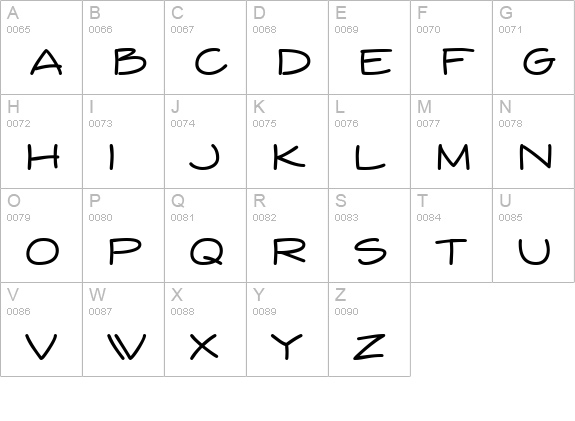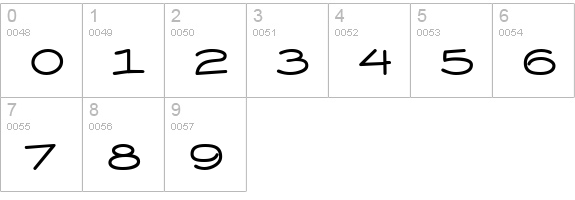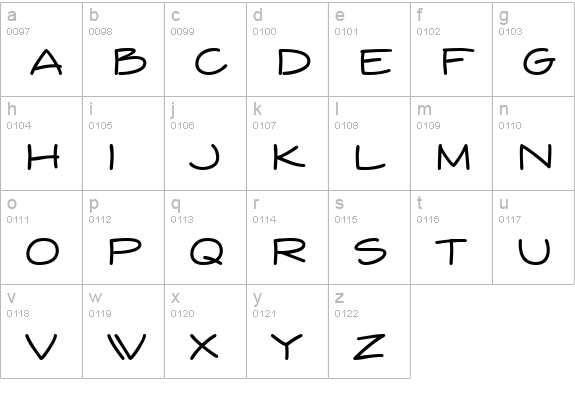
Yuba BTN Font Details
Yuba BTN is a modern and versatile font that effortlessly combines elegance with a touch of playfulness. Its smooth lines and subtly rounded edges give it a friendly and approachable feel, making it perfect for a wide range of design projects. Whether you're creating a logo, branding materials, or social media graphics, Yuba BTN is sure to make your text stand out. What makes Yuba BTN even more appealing is that it is available for free download at FontsMarket.com. This means that you can easily access this high-quality font without having to spend a single penny. So why wait? Enhance your designs with Yuba BTN today and let your creativity soar!